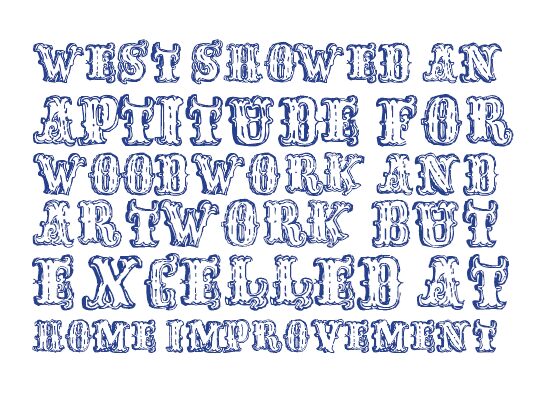
Fred Wild West by Squack of sq is a free outlined Western display font with oversized slab serifs and a lively frontier-show silhouette. Multiple inset contours give the letters a carved, sign-painted look. The edges buckle and curl with irregularity.
Its Old West styling suits saloon posters and themed event graphics. Packaging for barbecue sauces or drinks can use the drawing as part of a period label. In publishing, it is especially apt for Western novel covers and frontier features.